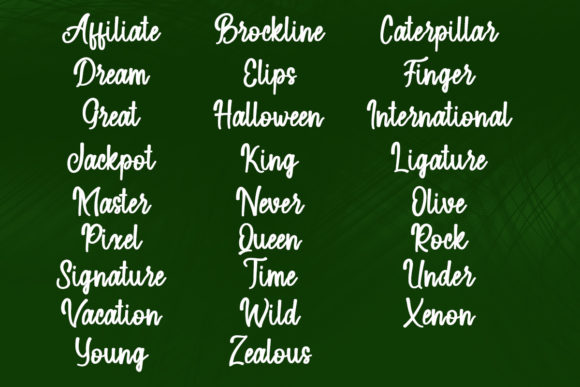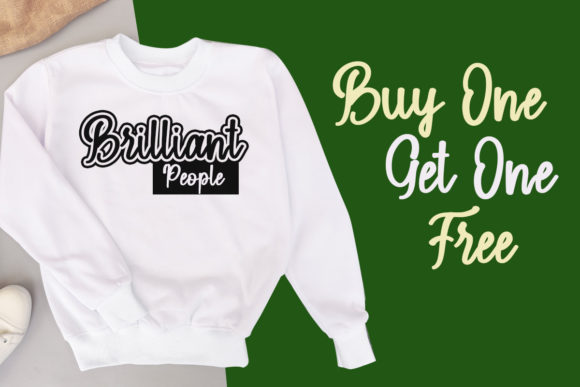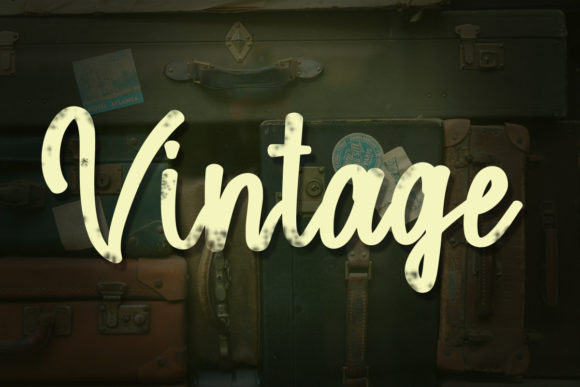
Unlock the Charm of Your Creative Projects with Bro’s Font
Have you ever been brainstorming a new design project, only to be struck by the perfect idea, but struggling to find the perfect font to bring it to life? This is exactly what happened to me the other day, and I’m still reeling from the excitement of discovering Bro’s Font. This lovely script font is a game-changer for designers looking to add a touch of whimsy and personality to their work.
Brought to you by the creative minds behind [font designer’s name], Bro’s Font is designed to make your ideas stand out in a crowded market. Its charming, playful characters seem to dance along the baseline, adding a unique touch to any project. Whether you’re a seasoned designer or just starting out, Bro’s Font is an invaluable asset that will help you take your creative vision to the next level.
Key Features of “Bro’s Font”
- Unique Characteristics: “Bro’s Font” features a bold, playful, and informal style, with rounded edges and a distinctive “bro-ish” vibe, making it perfect for casual, humorous, or ironic designs.
Designer Review: Bro’s Font
Overall, I’d say Bro’s Font is a fun and quirky addition to any design project. ✨ I love the relaxed, casual vibe it gives off, and it’s perfect for anything from social media graphics to beer labels. ✨ The font’s bold, chunky lines make it stand out, and it’s sure to grab attention.
- ✨ Unique and playful aesthetic that’s perfect for non-traditional designs
- ✨ Excellent for creating a fun, laid-back atmosphere
- ✨ Bold lines make it easy to read and understand
That being said, there are a few limitations to consider:
- ⚠️ May not be suitable for formal or professional designs
- ⚠️ Can be overwhelming if used in large quantities
- ⚠️ Limited font sizes and styles may restrict creative freedom
Overall, I think Bro’s Font is a great addition to any designer’s toolkit, but it’s essential to use it wisely. With its playful, bold aesthetic, it’s perfect for projects that need a bit of personality. Just be mindful of its limitations, and you’ll be golden.
Use “Bro’s Font” to add a playful and casual touch to your designs, especially for social media graphics, memes, and humorous content.
Experiment with different font sizes, colors, and styles to create a unique and eye-catching look.
Remember to use “Bro’s Font” in moderation, as it can be overwhelming if overused.